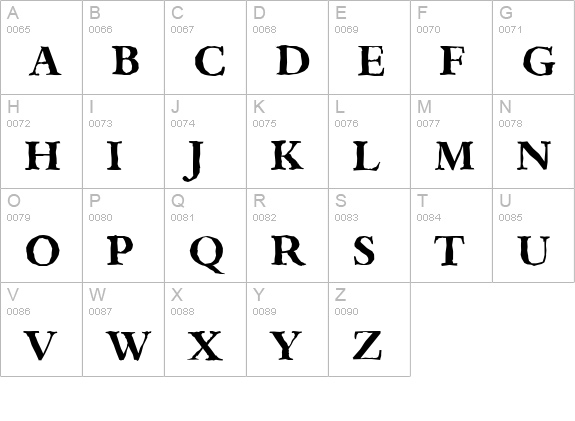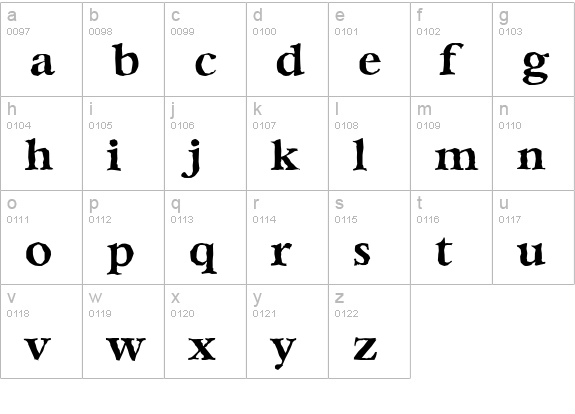
BernsteinAntique-Bold Font Details
BernsteinAntique-Bold is a strong, high-contrast variant in the BernsteinAntique typeface family \xE2\x80\x94 well suited to headlines, attention-grabbing titles, and strong calls-to-action.
BernsteinAntique-Bold font is a timeless and sophisticated typeface that exudes elegance and charm. With its bold and distinctive letterforms, this font is perfect for adding a touch of class to your design projects. The strong serifs and clean lines of BernsteinAntique-Bold make it a versatile choice for a wide range of applications, from branding to editorial design. What's even better is that BernsteinAntique-Bold is available for free download at FontsMarket.com. This means you can easily add this beautiful font to your collection without any cost. Don't miss out on the opportunity to enhance your designs with the classic beauty of BernsteinAntique-Bold.